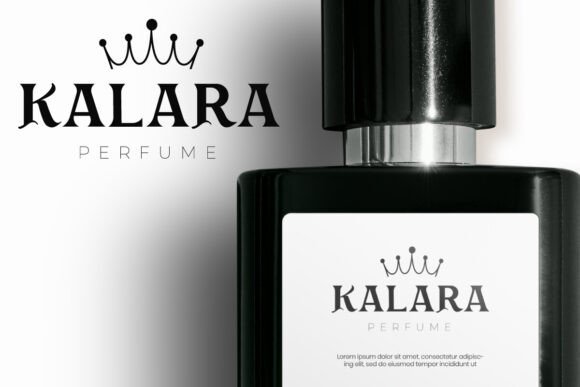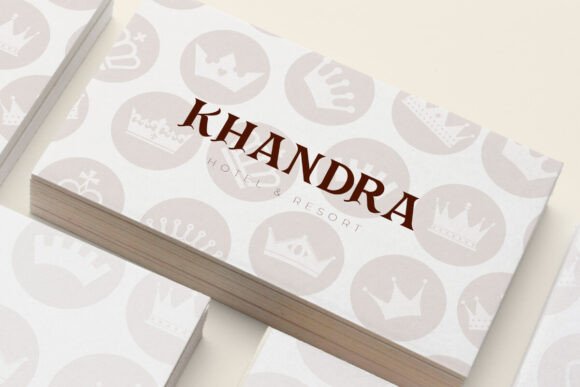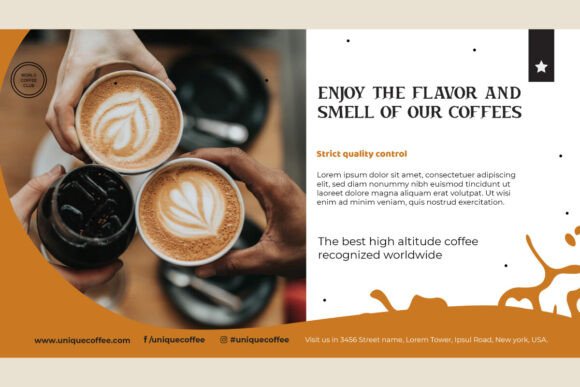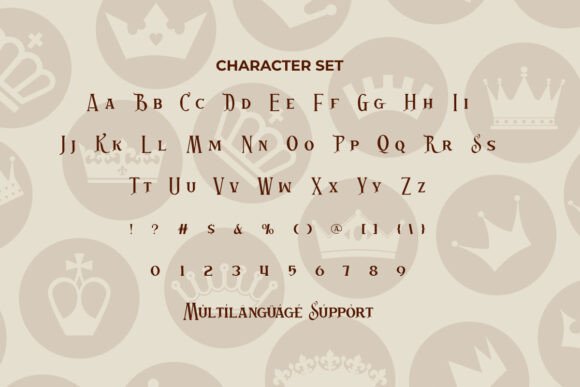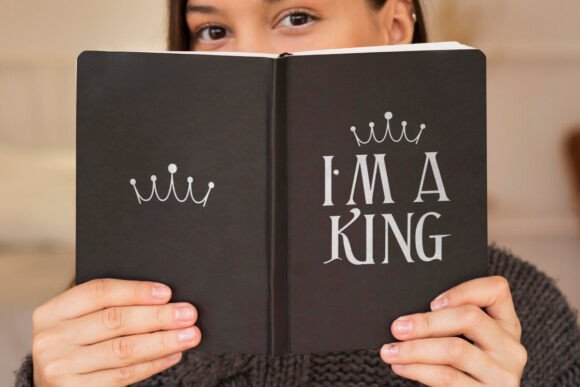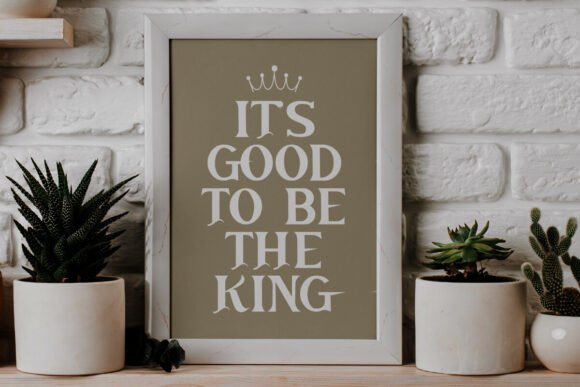
Introduction to King Battle Font
King Battle Font is a classic display typeface inspired by the concept of an ancient kingdom.
Drawing influence from gothic design, it modernizes the aesthetic without losing the old-world charm, making it a versatile choice for various industries Whether itโs accessories, advertising, art, cafรฉs, clothing brands, events or festivals, fashion design, film, furniture, handicrafts, hotels, movies, perfumes, pottery, printing, publishing, restaurants, writing, and more, this font fits seamlessly.
Key Features of King Battle Font
Why Choose King Battle Font?
King Battle Font offers exceptional quality and versatility, making it a valuable addition to your design toolkit. Whether you’re creating for personal projects or commercial use, King Battle Font delivers professional results.